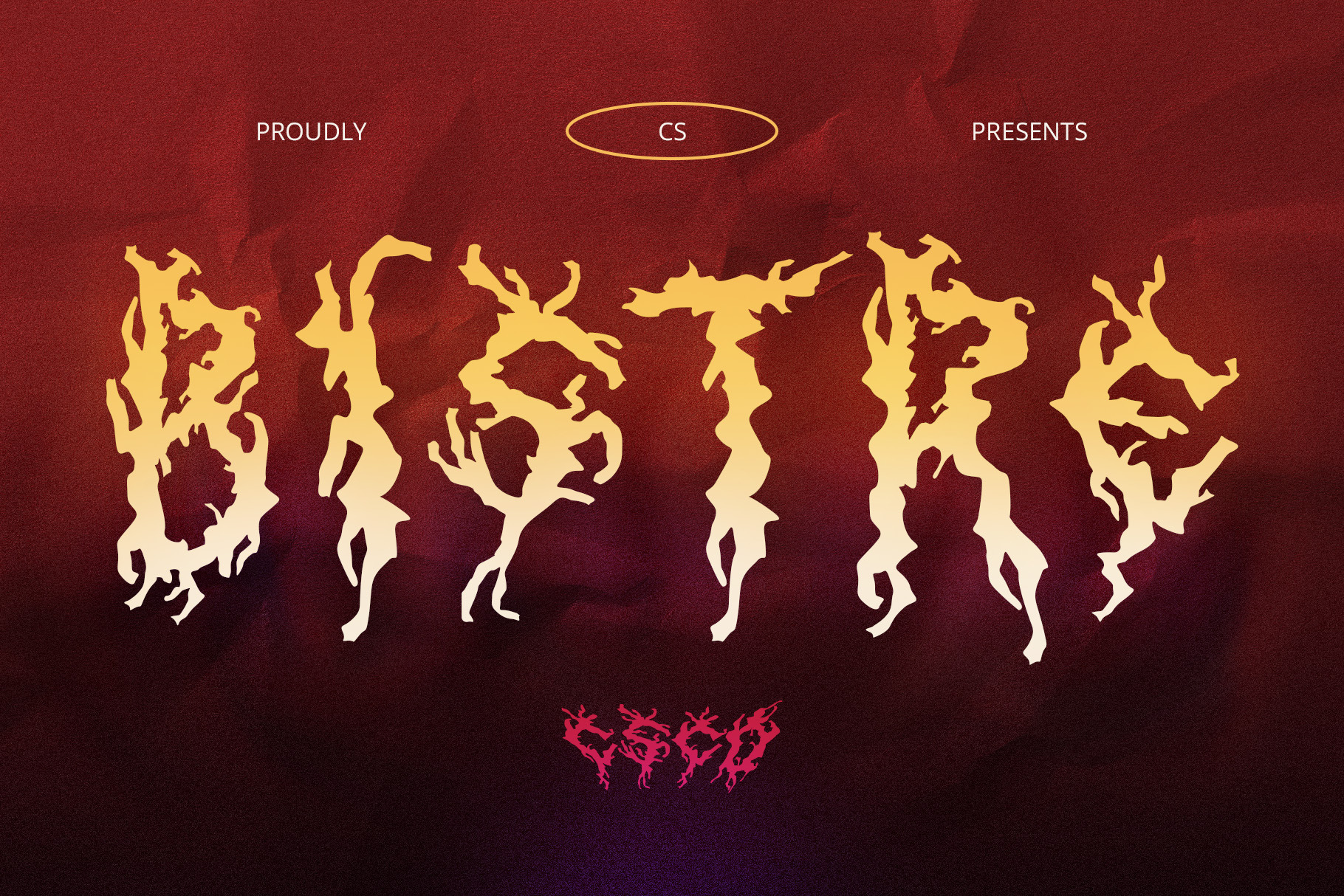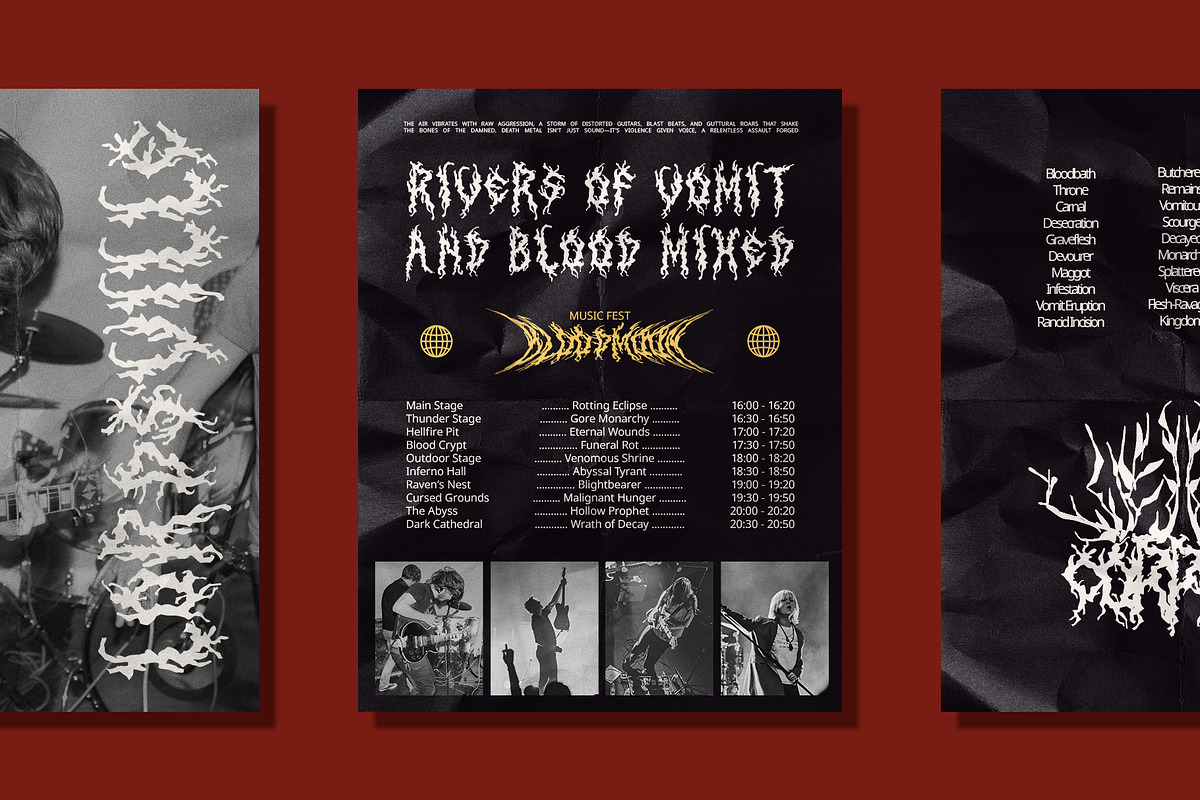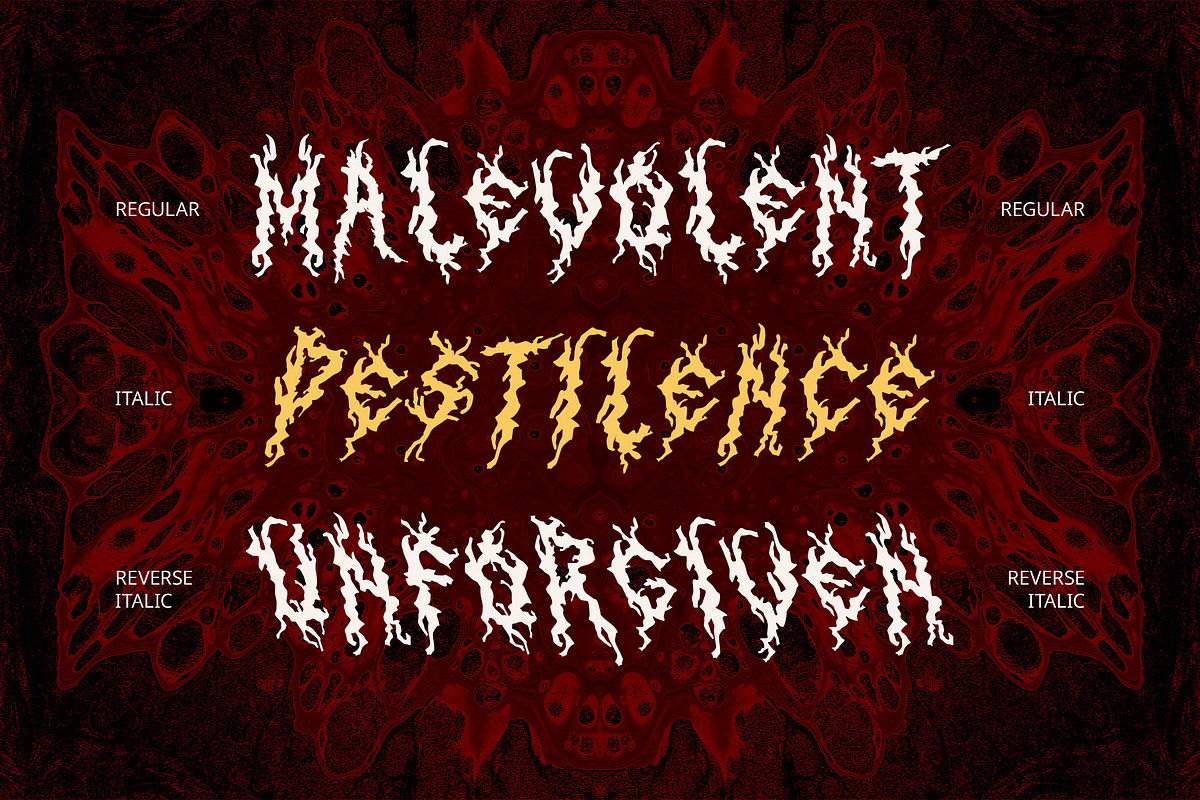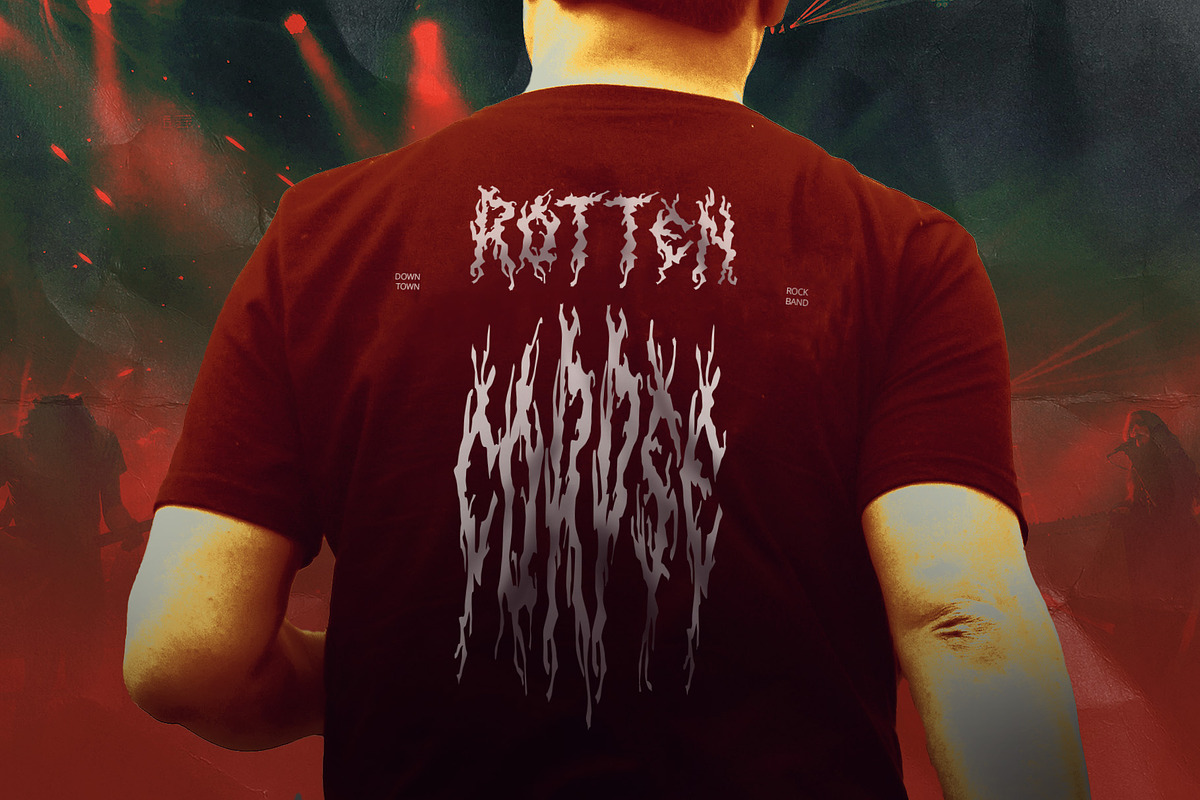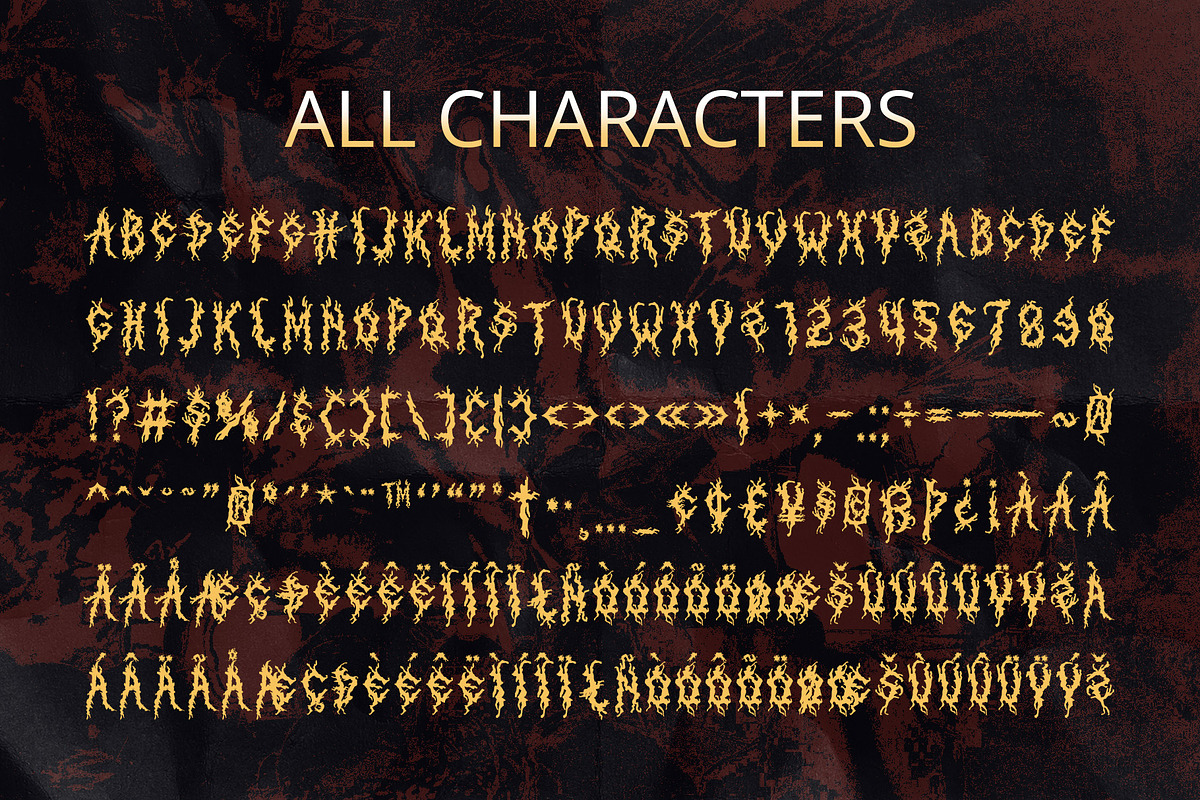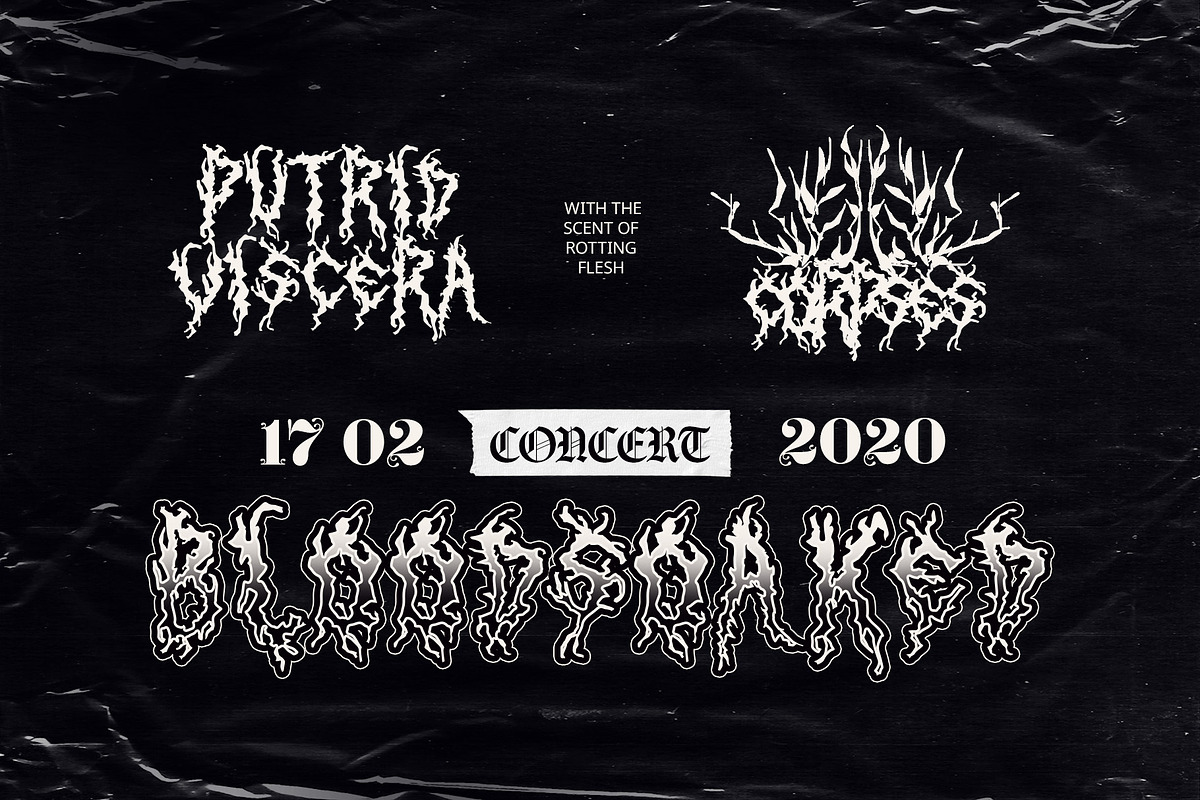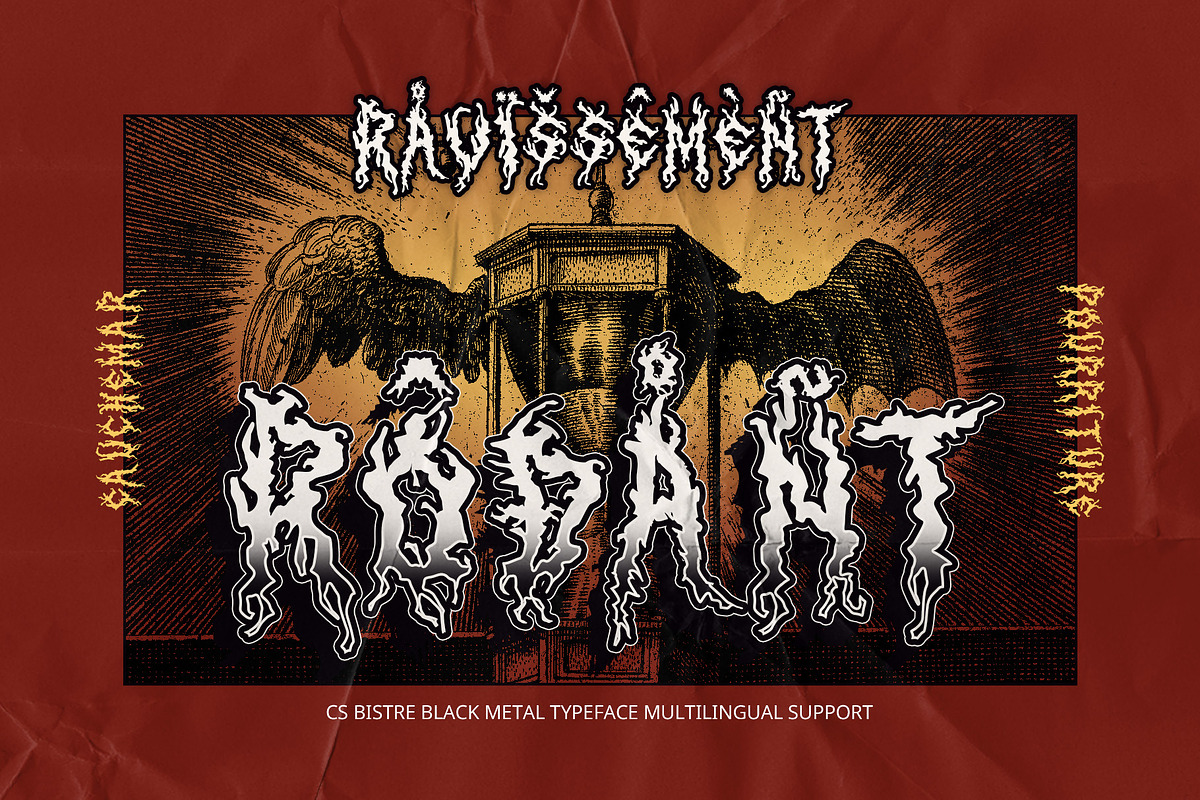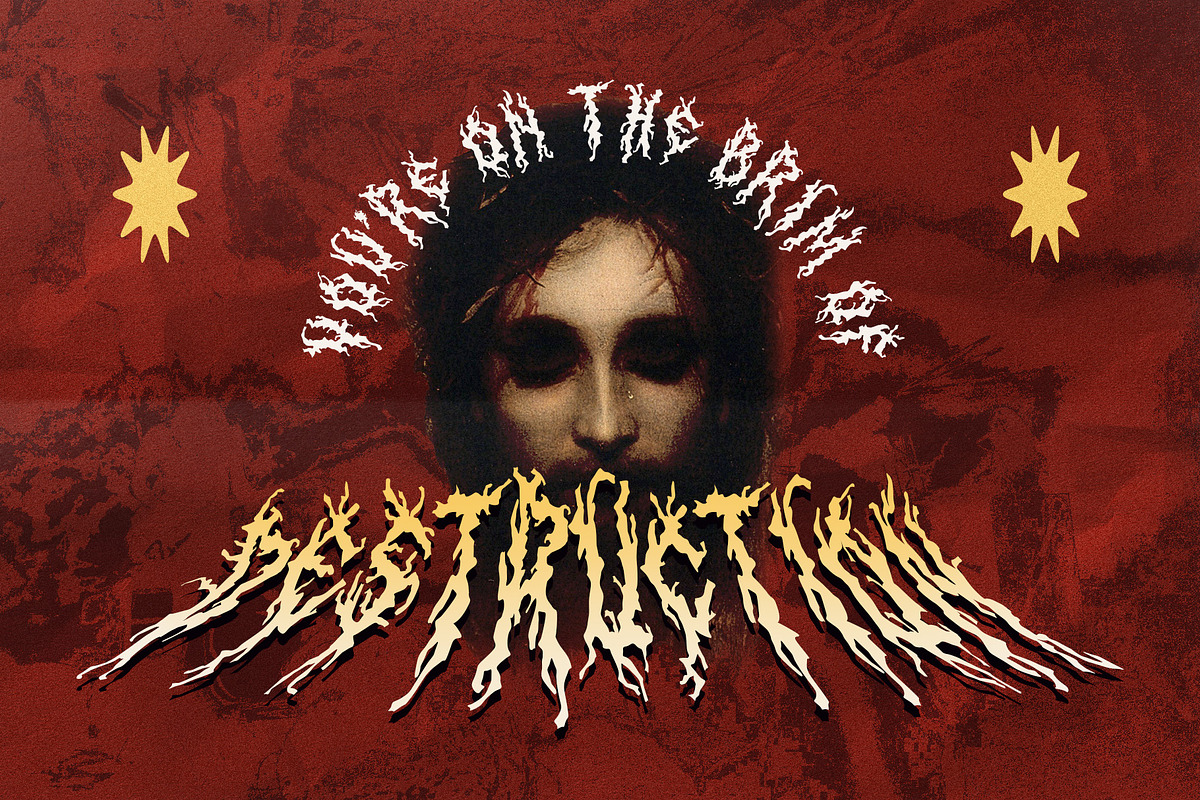
CS Bistre – Black Metal Font
CS Bistre – Black Metal Font: Raw, Chaotic, and Unrelenting
A Display Font That Embraces Darkness CS Bistre is a Black Metal display font designed to embody the chaotic and aggressive energy of extreme metal culture. Featuring jagged, sharp letterforms, raw textures, and distorted strokes, this typeface delivers an ominous and unrestrained visual impact.
Dark, Gothic, and Mystical Aesthetic Inspired by ancient calligraphy, decayed structures, and natural chaos, CS Bistre’s irregular shapes mimic twisted branches, dripping ink, and brutalist engravings, reinforcing its eerie and sinister appeal. It’s a font that captures the essence of the underground with its dark and enigmatic presence.
Perfect for Extreme Music and Horror Designs Designed for metal band logos, album covers, horror movie posters, and alternative branding, CS Bistre instantly commands attention with its aggressive and raw appearance. Its unorthodox structure and rebellious nature make it ideal for projects seeking a bold, untamed identity.
A Typeface That Defies Tradition CS Bistre is not just a font—it’s a statement of raw energy and artistic defiance. Whether for gothic-inspired artwork, extreme music branding, or horror aesthetics, this font immerses audiences in a dark and atmospheric world, where chaos and creativity collide.